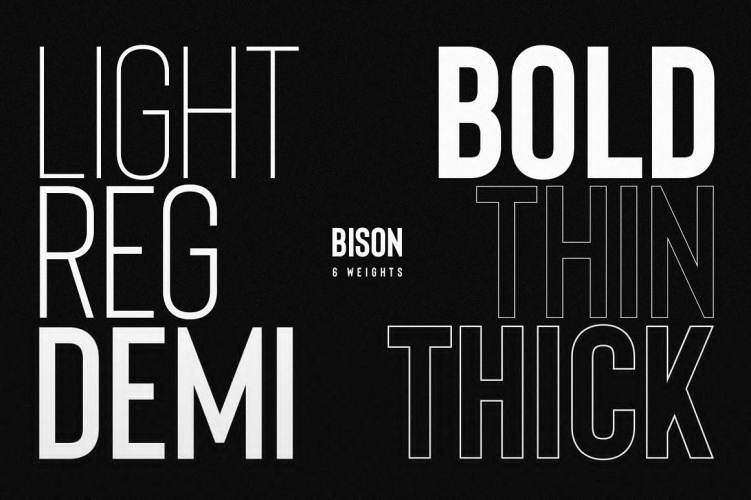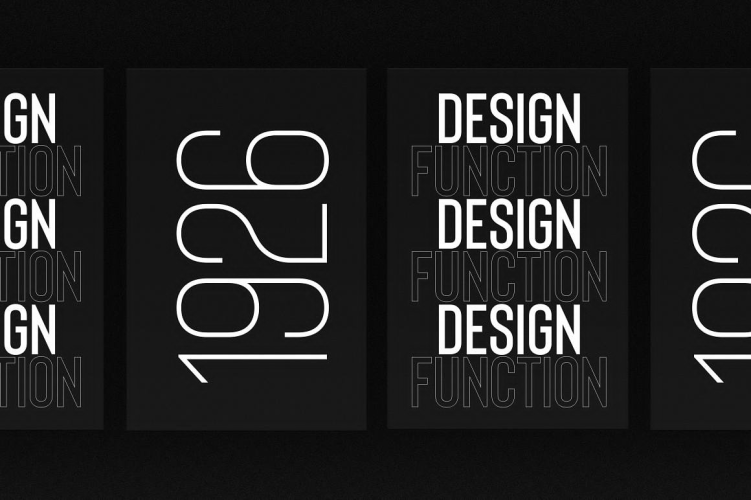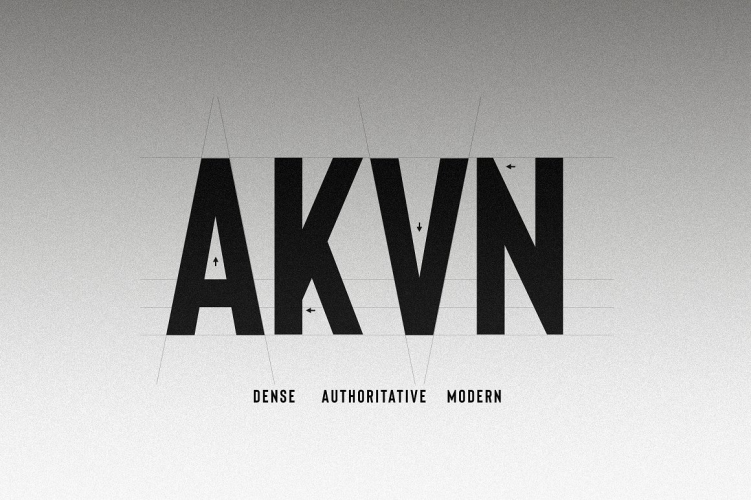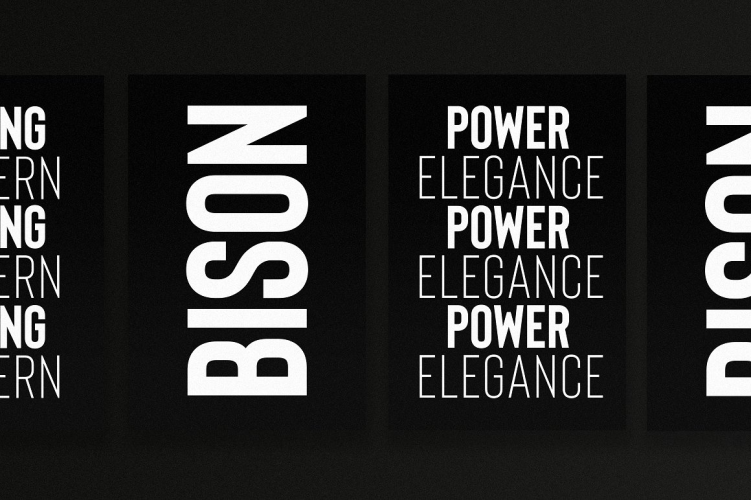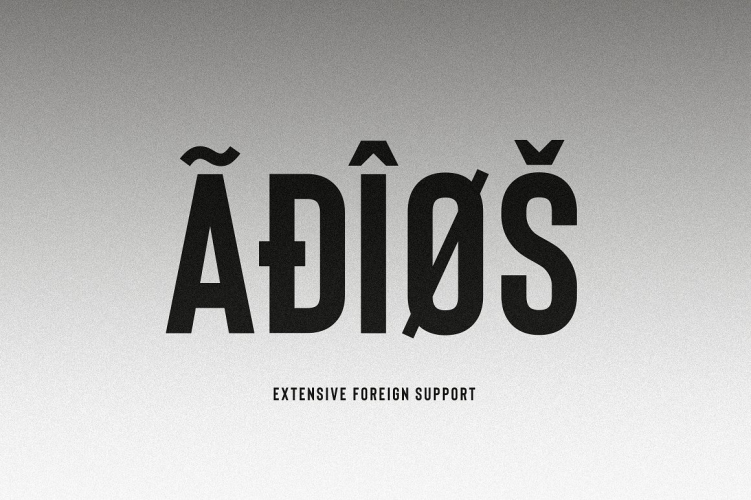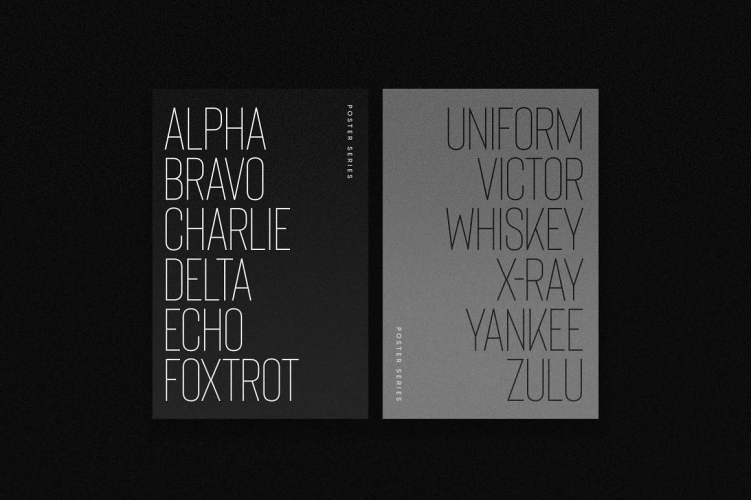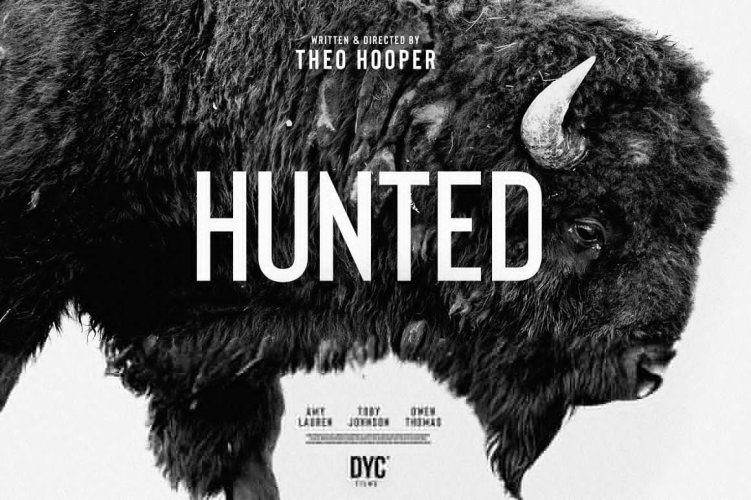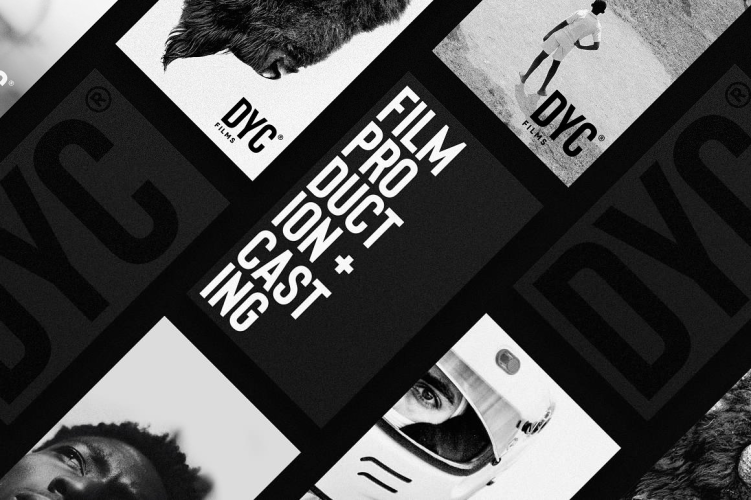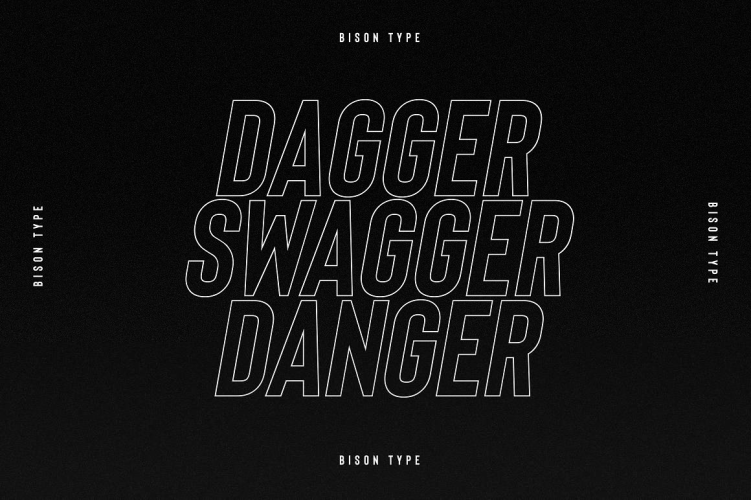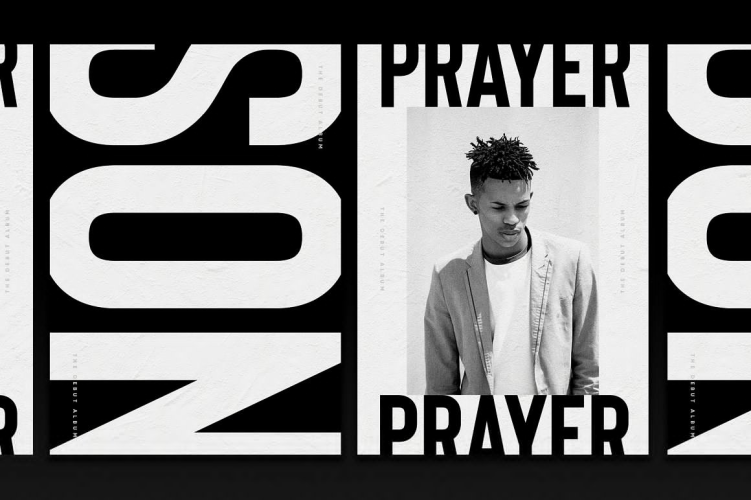
Bison Font
Bison is a robust font family and sophisticated sans serif. Inspired by the animal, its sturdy, uncompromising style is felt through the controlled letterforms and modern touches. Each font in the family can stand on its own, dynamic and authoritative in its own right.
Bison includes ten all-caps fonts: Four weights, two outlines, and six italics.
Four weights / Italics / Outlines / Numbers & Punctuation / Extensive Language Support
Bison works great in any branding, logos, magazines, and films. The different weights give you a full range to explore a whole host of applications, while the outlined fonts give any project a natural, modern feel.
Bison Font is a Sans Serif Fonts font that brings a professional and versatile look to your projects. Bison is a robust font family and sophisticated sans serif.